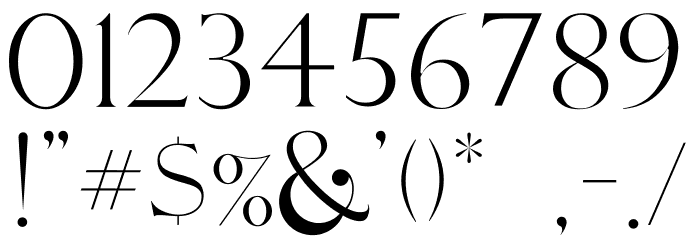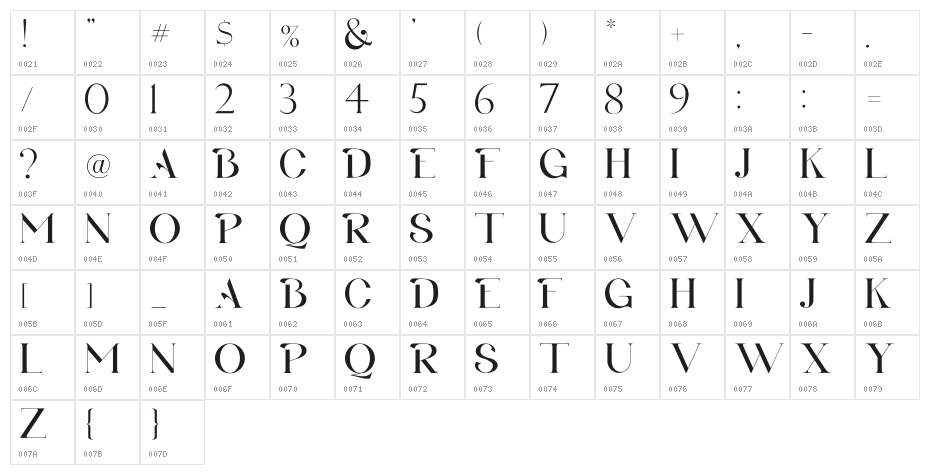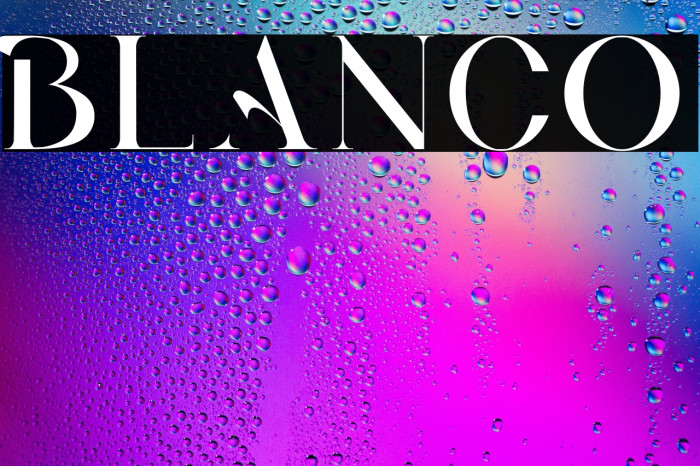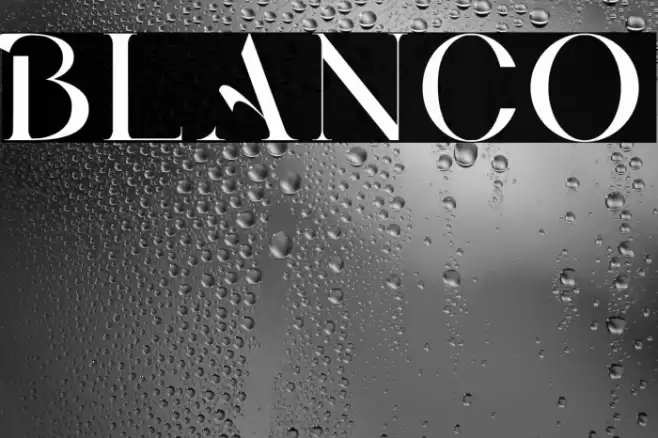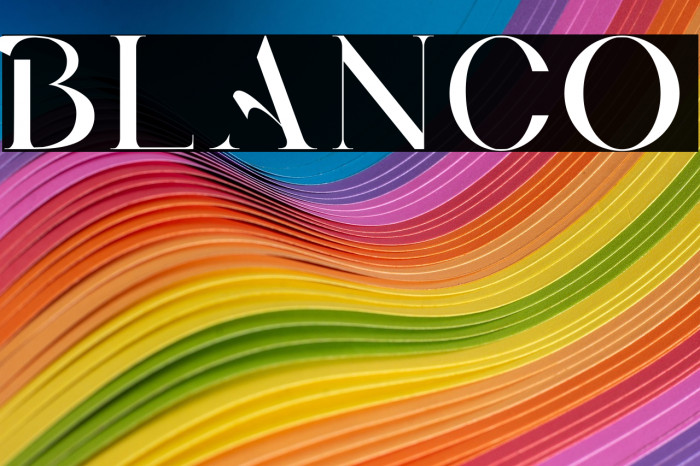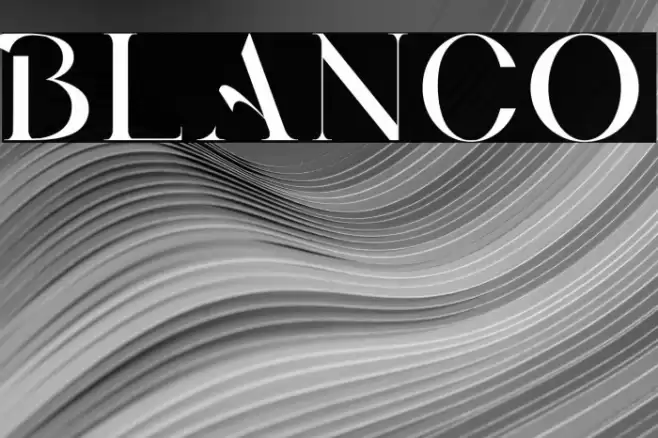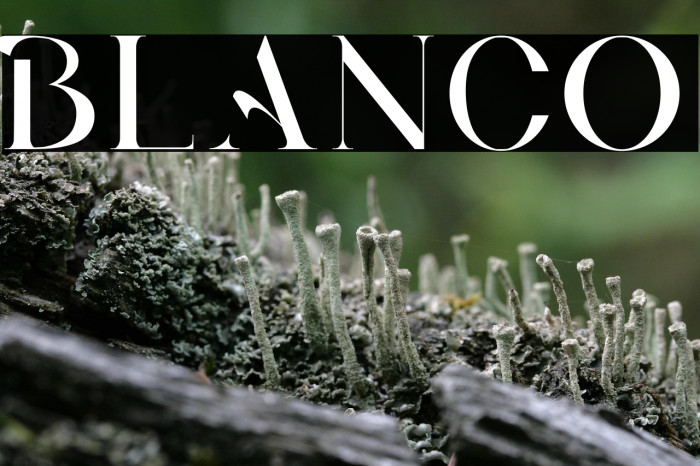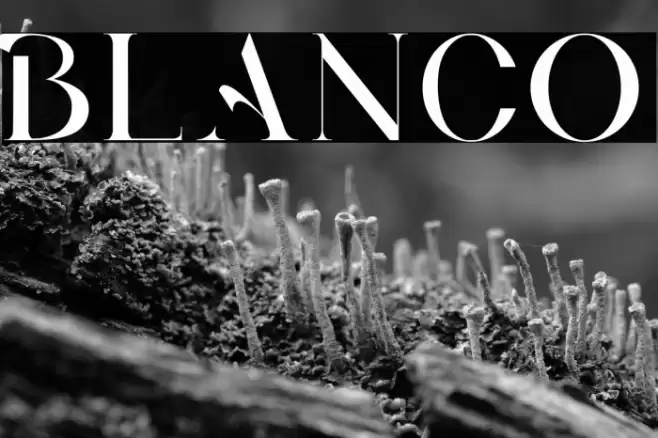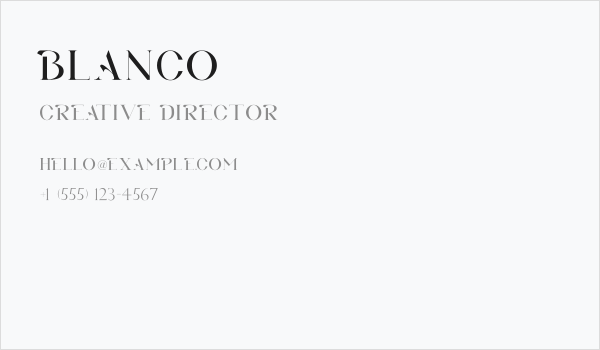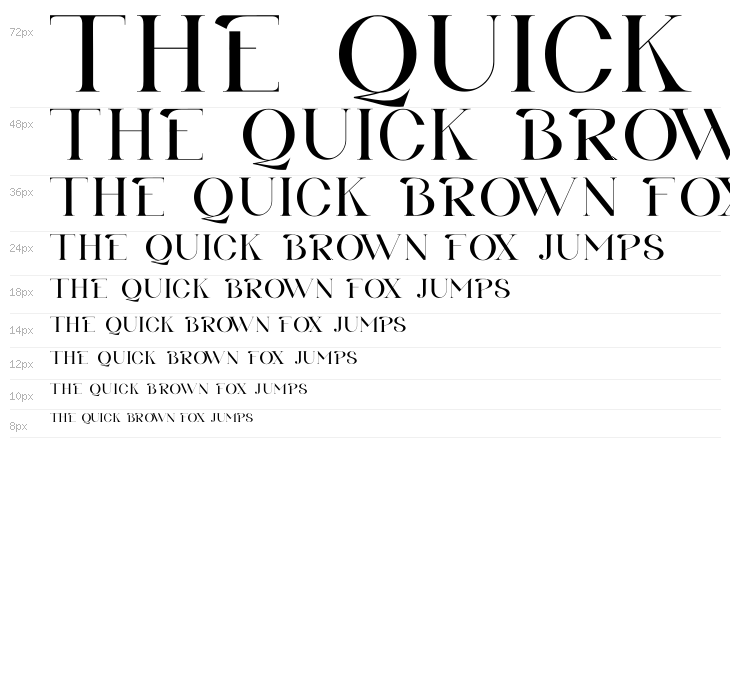
BLANCO Font
BLANCO Description
This font exhibits a unique blend of modern and classic elements, characterized by its high contrast in stroke thickness and distinct geometric shapes. The uppercase letters feature sharp, angular serifs and a bold presence, while the lowercase letters maintain a consistent style with slightly more curvature. The numerals are designed with a similar aesthetic, providing a cohesive look across all characters. The special characters are thoughtfully integrated, maintaining the overall design language. This font's striking appearance makes it ideal for attention-grabbing headlines and logos.
| Proposed Projects | Ideal for branding, editorial design, posters, and luxury product packaging. |